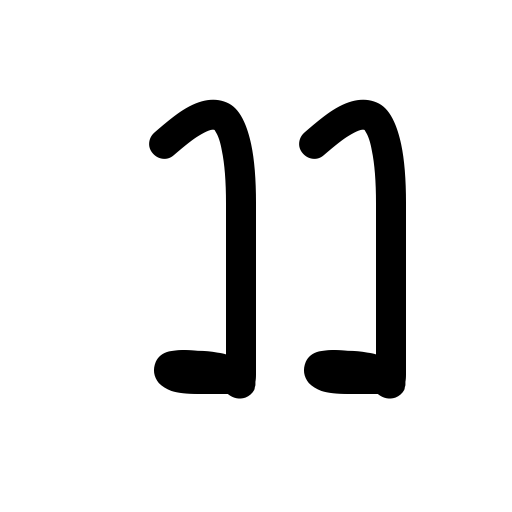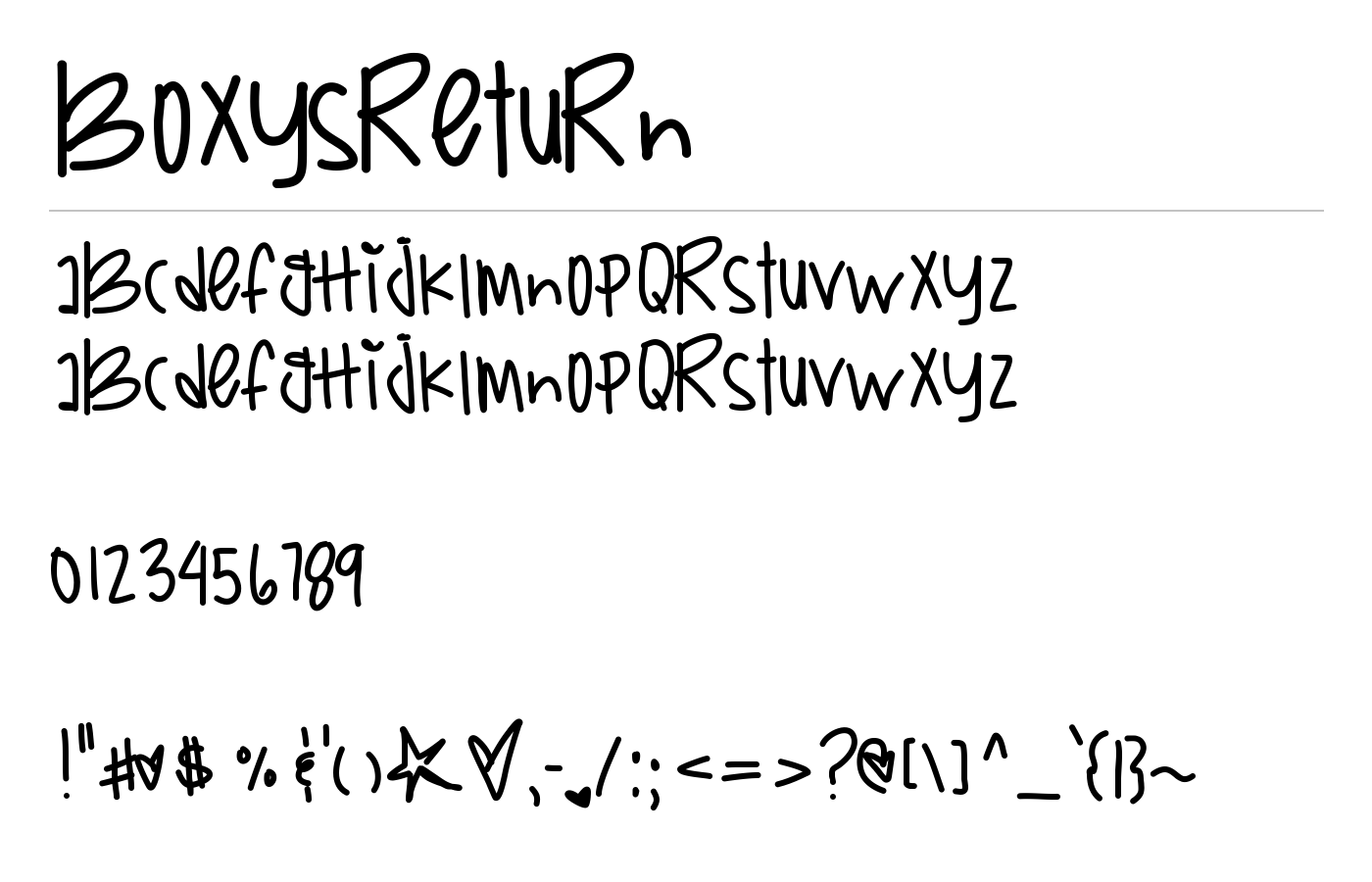
BoxysReturn is a playful, handwritten sans serif font with a casual, friendly vibe. Its irregular strokes and quirky letter shapes give it an informal, personal feel that's perfect for creative projects, children's materials, or branding that wants to appear approachable and fun. This font works best in logos, invitations, and headers where a warm, lively touch is desired.
BoxysReturn Font
About BoxysReturn Font